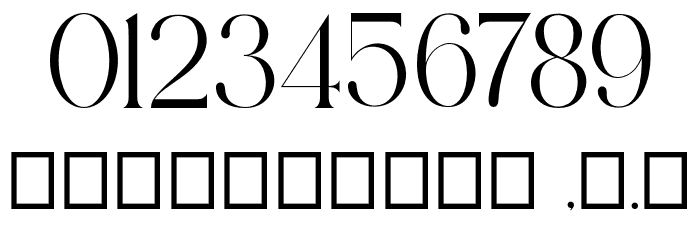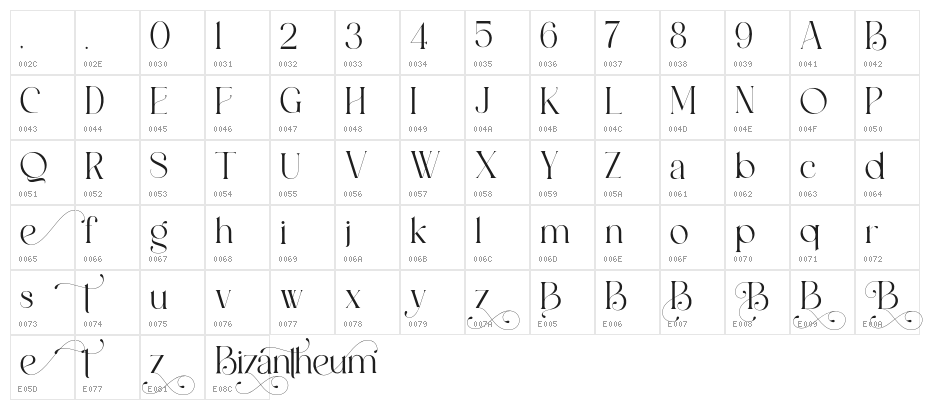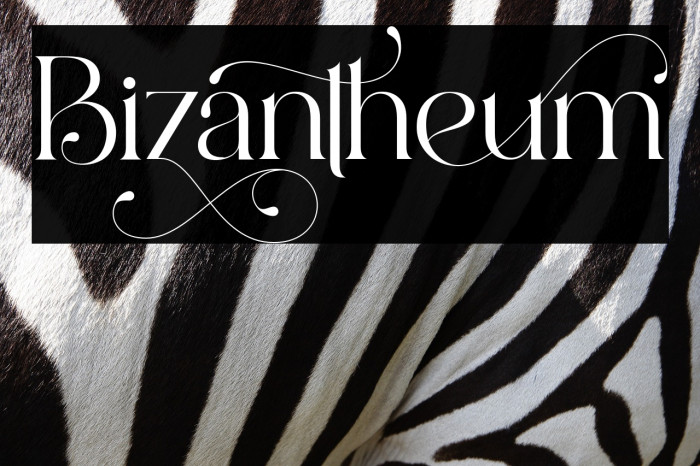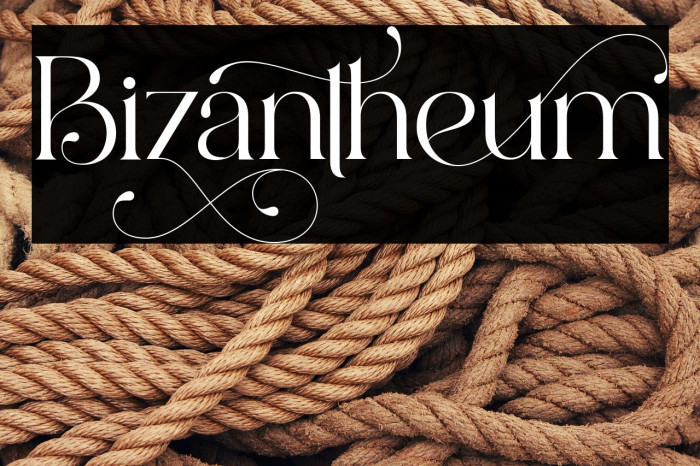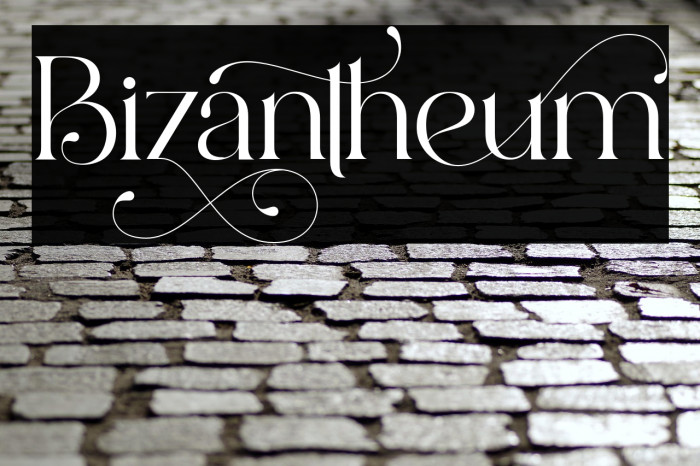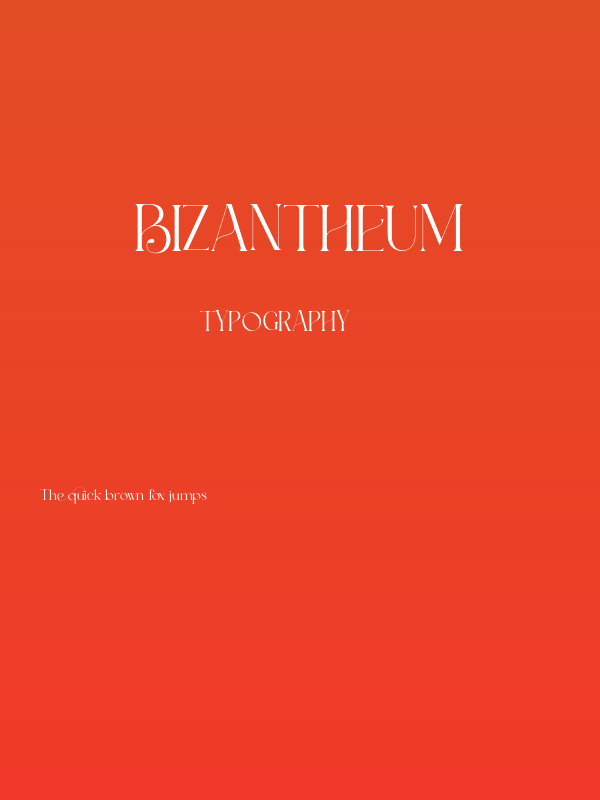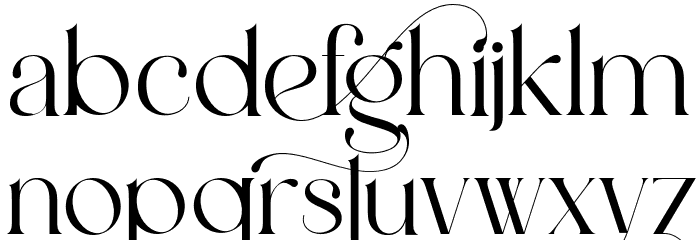
Bizantheum Font
Bizantheum Description
This font features an elegant and sophisticated design with a high contrast between thick and thin strokes, giving it a refined and stylish appearance. The uppercase letters are characterized by their tall, slender forms with delicate serifs, while the lowercase letters exhibit a graceful flow with some decorative swashes, particularly noticeable in letters like 'g' and 'y'. The numerals are consistent with the overall aesthetic, maintaining the high contrast and elegant curves. Special characters are designed to complement the letterforms, adding to the font's cohesive look. This font is ideal for projects that require a touch of elegance and sophistication.
| Proposed Projects | Ideal for luxury branding, wedding invitations, editorial design, and high-end product packaging. |